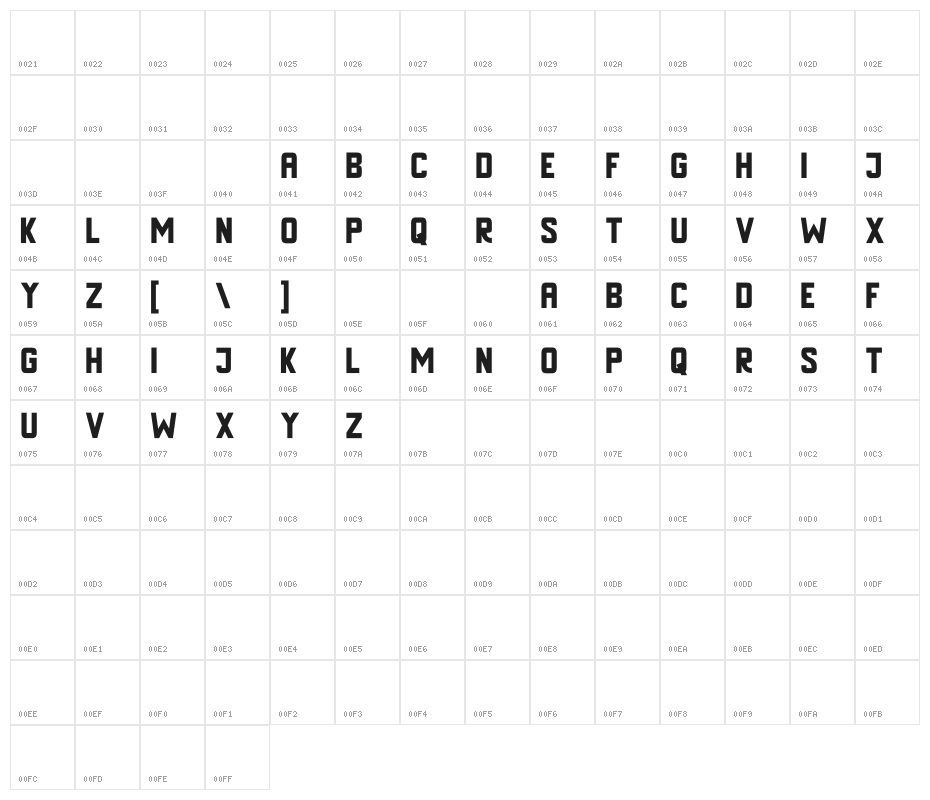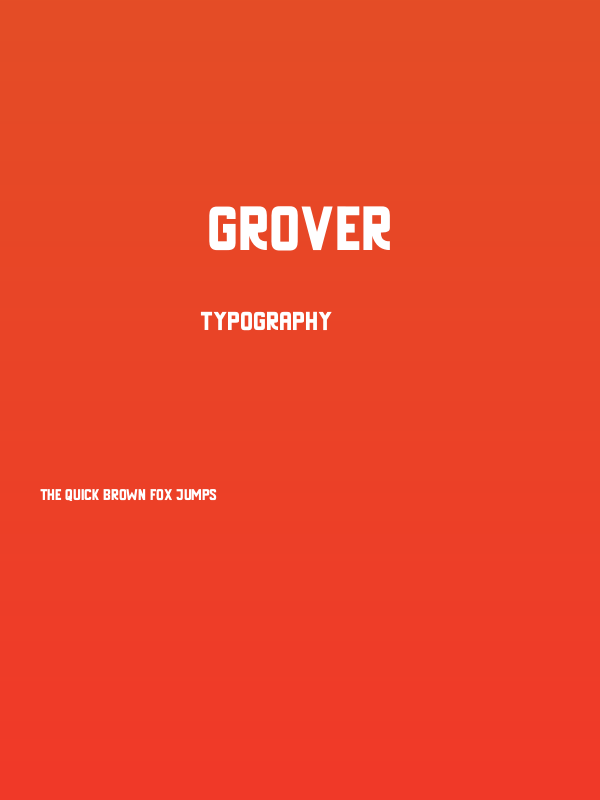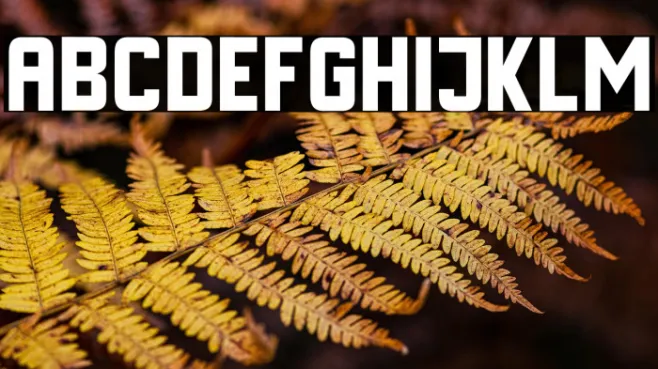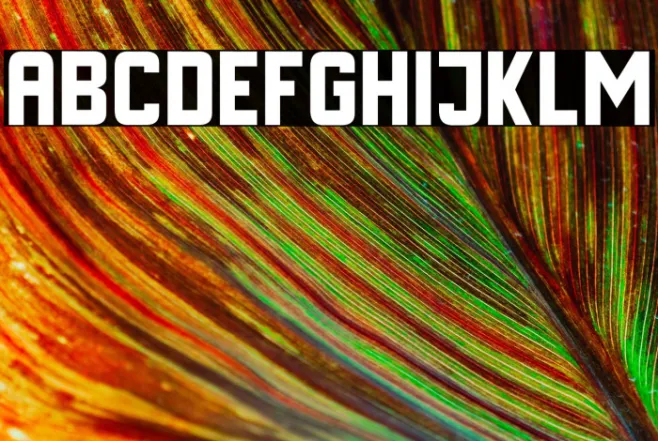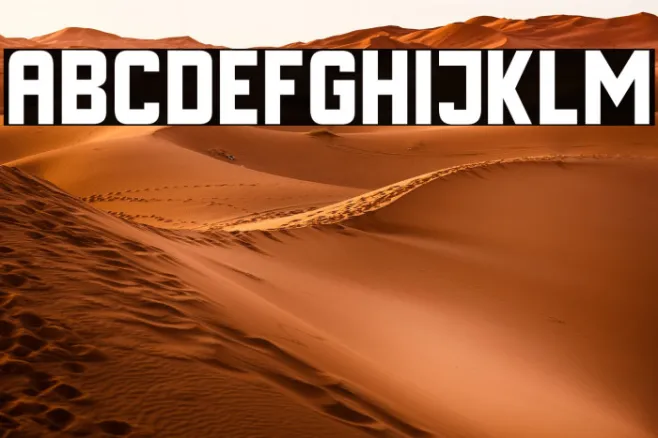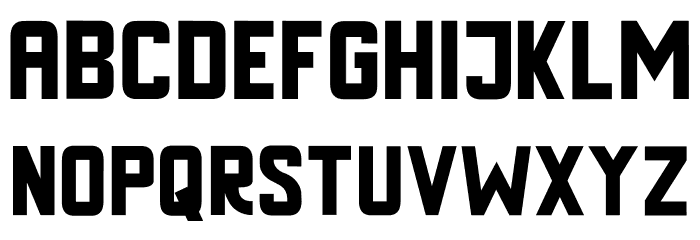
Grover Font
Grover Description
This font features a bold, geometric sans-serif style with strong, clean lines and a modern aesthetic. The characters are uniform in width, creating a cohesive and structured appearance. The uppercase letters are particularly striking, with a blocky, robust design that conveys strength and stability. The font's simplicity and clarity make it highly legible, even at smaller sizes. Its contemporary look is suitable for a variety of design applications, from digital to print media.